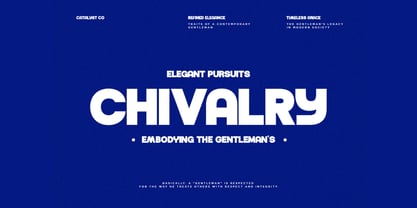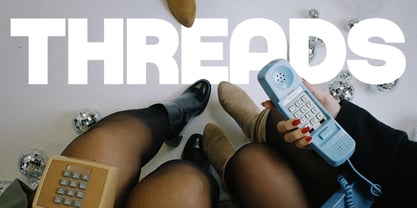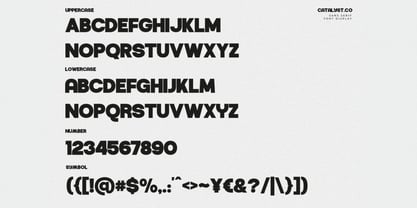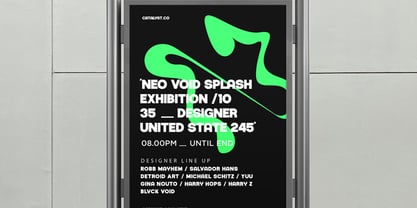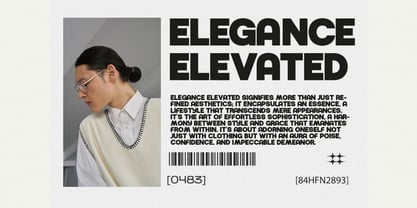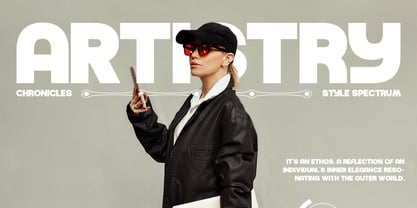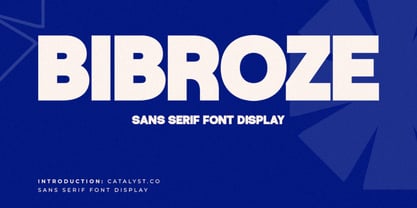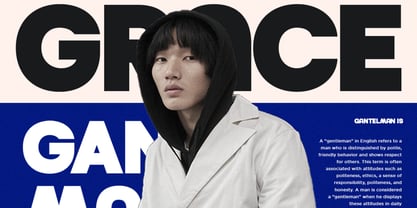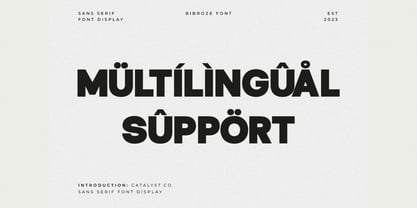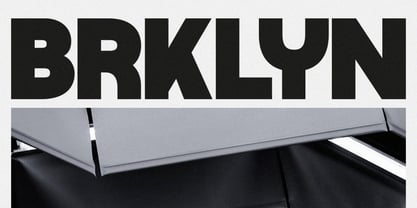
Bibroze
Die Schriftfamilie Bibroze wurde von entworfen und von Catalystco Std veröffentlicht. Bibroze enthält 1 Stile. Mehr über diese Familie
Bibroze is a bold sans serif display font built for strong visual impact and modern clarity. Designed with solid letterforms and balanced proportions, this font delivers confident typography for headlines, branding, and large-scale layouts. This font is highly relevant for modern branding, editorial layouts, posters, advertisements, headlines, logos, web headers, social media graphics, packaging, and visual identities that require a bold, confident, and contemporary typographic presence.